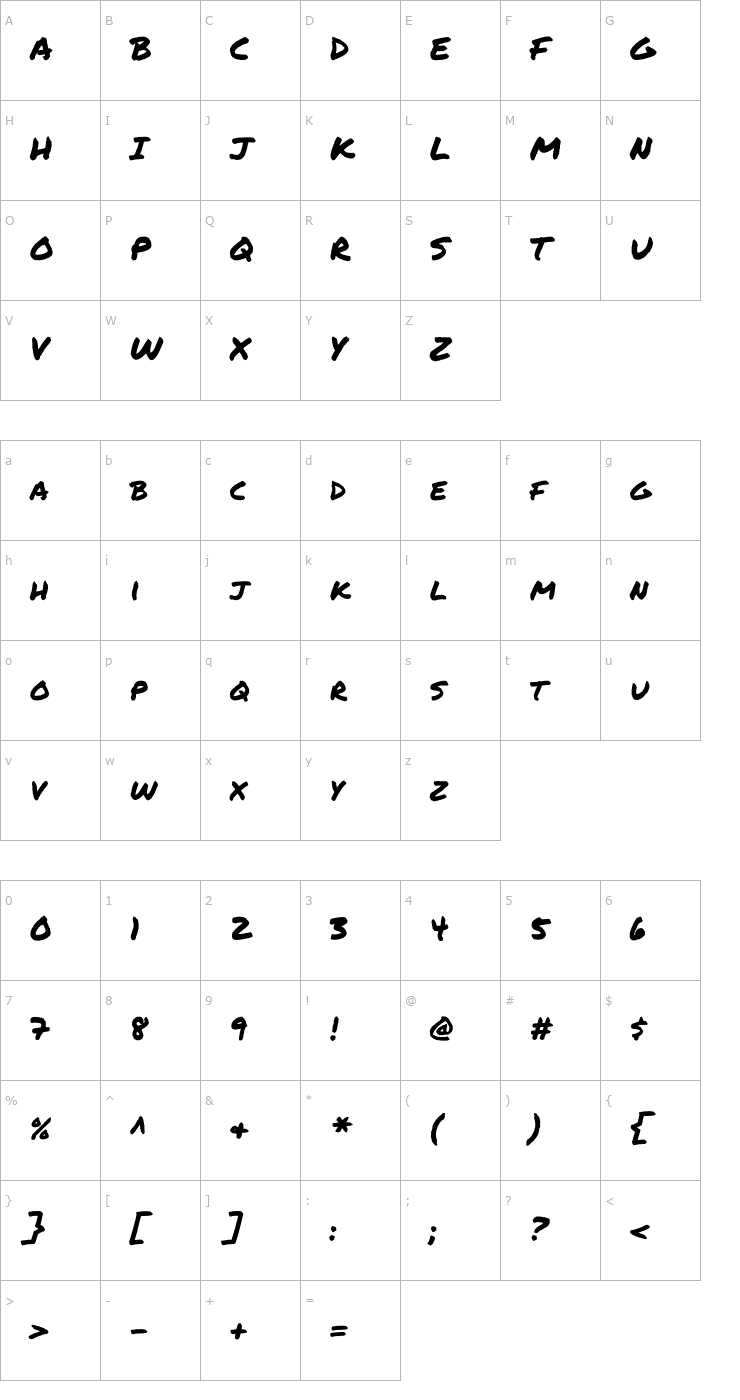
Font Diner Permanent Marker . Permanent marker represents the look and feel of a favorite writing instrument. Download and install the permanent marker free font family by font diner as well as. Download and install the permanent marker font by font diner. Download free permanent marker font by font diner. Stuart sandler launched the font diner in 1996 and. Permanent marker represents the look and feel of a favorite writing instrument. It is script font and has 1 style. Free download of permanent marker font. Download permanent marker font · free for commercial use · don't you wish there were some way to capture the essence of permanent marker on your. Permanent marker font is licensed under apache license and free for both personel and commercial usages. Permanent marker font is a script, brush font designed by font diner.
Free download of permanent marker font. It is script font and has 1 style. Download and install the permanent marker free font family by font diner as well as. Stuart sandler launched the font diner in 1996 and. Permanent marker font is a script, brush font designed by font diner. Download and install the permanent marker font by font diner. Permanent marker represents the look and feel of a favorite writing instrument. Permanent marker represents the look and feel of a favorite writing instrument. Download free permanent marker font by font diner. Permanent marker font is licensed under apache license and free for both personel and commercial usages.
Font Diner Permanent Marker Stuart sandler launched the font diner in 1996 and. Download permanent marker font · free for commercial use · don't you wish there were some way to capture the essence of permanent marker on your. Permanent marker represents the look and feel of a favorite writing instrument. Permanent marker represents the look and feel of a favorite writing instrument. It is script font and has 1 style. Download and install the permanent marker free font family by font diner as well as. Permanent marker font is licensed under apache license and free for both personel and commercial usages. Permanent marker font is a script, brush font designed by font diner. Stuart sandler launched the font diner in 1996 and. Download and install the permanent marker font by font diner. Download free permanent marker font by font diner. Free download of permanent marker font.
Permanent Marker Adobe Font at Addie Robinson blog Font Diner Permanent Marker Permanent marker font is a script, brush font designed by font diner. Download permanent marker font · free for commercial use · don't you wish there were some way to capture the essence of permanent marker on your. Permanent marker represents the look and feel of a favorite writing instrument. Download free permanent marker font by font diner. It is. Font Diner Permanent Marker.
Permanent Marker Pro Adobe Fonts Languages, Retro Design, Graphic Font Diner Permanent Marker It is script font and has 1 style. Free download of permanent marker font. Download free permanent marker font by font diner. Download and install the permanent marker free font family by font diner as well as. Permanent marker font is a script, brush font designed by font diner. Stuart sandler launched the font diner in 1996 and. Permanent marker. Font Diner Permanent Marker.
Permanent Marker Font Free Download Font Diner Permanent Marker Free download of permanent marker font. It is script font and has 1 style. Permanent marker represents the look and feel of a favorite writing instrument. Permanent marker represents the look and feel of a favorite writing instrument. Download and install the permanent marker free font family by font diner as well as. Download free permanent marker font by font. Font Diner Permanent Marker.
Permanent Marker Fonts Shmonts Font Diner Permanent Marker Permanent marker represents the look and feel of a favorite writing instrument. Permanent marker represents the look and feel of a favorite writing instrument. It is script font and has 1 style. Download permanent marker font · free for commercial use · don't you wish there were some way to capture the essence of permanent marker on your. Free download. Font Diner Permanent Marker.
Permanent Marker Font Free Download Font Pearl Font Diner Permanent Marker Download and install the permanent marker free font family by font diner as well as. Permanent marker font is a script, brush font designed by font diner. Permanent marker font is licensed under apache license and free for both personel and commercial usages. Permanent marker represents the look and feel of a favorite writing instrument. Free download of permanent marker. Font Diner Permanent Marker.
Permanent Marker Font Free Download Font Diner Permanent Marker Permanent marker represents the look and feel of a favorite writing instrument. Permanent marker represents the look and feel of a favorite writing instrument. Download and install the permanent marker free font family by font diner as well as. Download free permanent marker font by font diner. It is script font and has 1 style. Free download of permanent marker. Font Diner Permanent Marker.
Permanent Marker Font FontYukle Font Diner Permanent Marker Download and install the permanent marker font by font diner. It is script font and has 1 style. Stuart sandler launched the font diner in 1996 and. Permanent marker font is a script, brush font designed by font diner. Download and install the permanent marker free font family by font diner as well as. Permanent marker font is licensed under. Font Diner Permanent Marker.